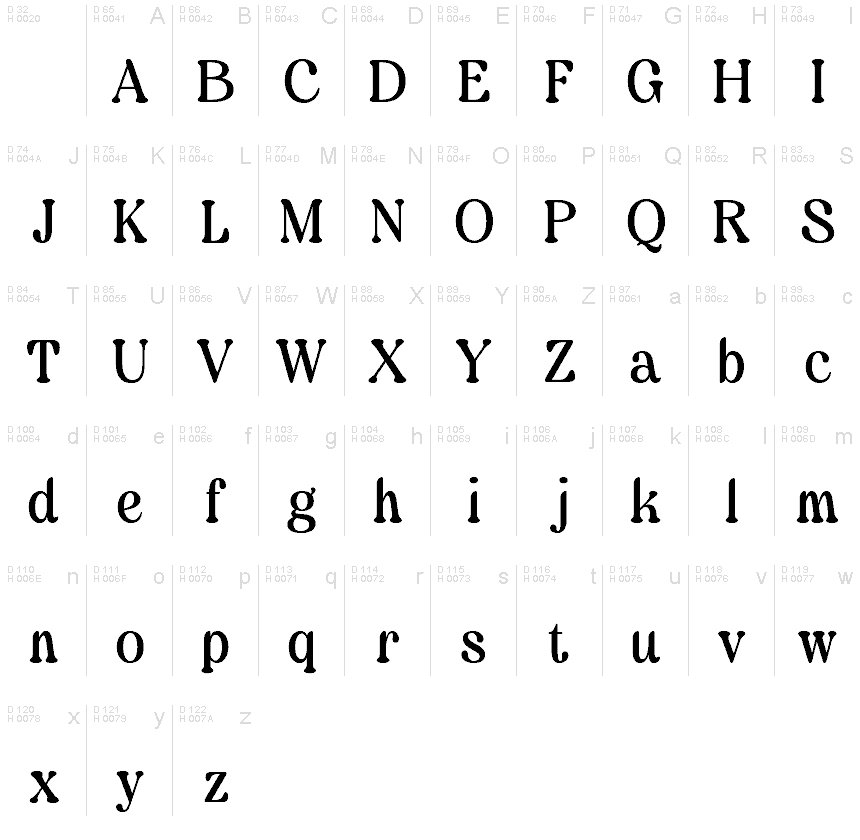
Forena Demo Regular
Forena font from Craft Supply Co is a serif typeface with a classic and elegant appearance. It presents a subtle vintage influence with a formal tone, distinguished by square serifs, contrasting thicknesses, tall letters, and slightly narrow proportions. Together, they help the font develop a refined aesthetic that makes its display in any platform as beautiful as can be.
Clearly designed for print media but always ready for digital platforms as well, Forena will decorate newspapers and magazine titles to suit its classic theme. You can also make the most of this free font with elegant designs related to art events invitations or even shop signs!